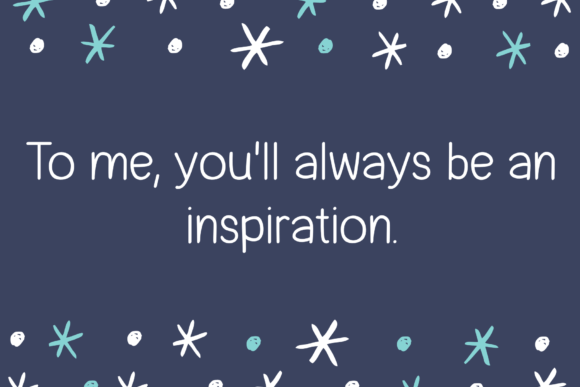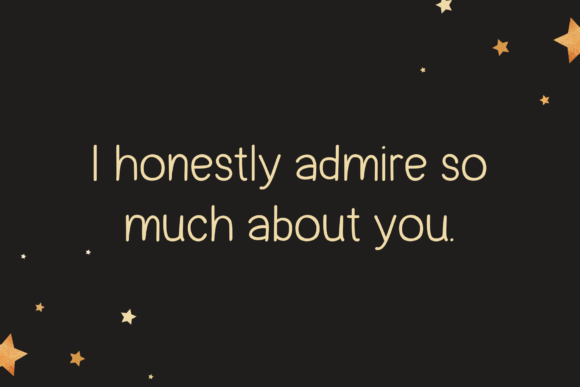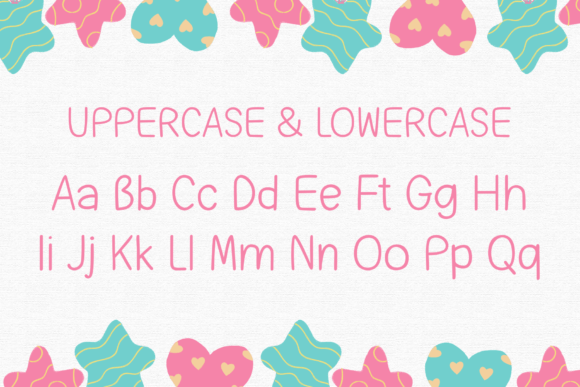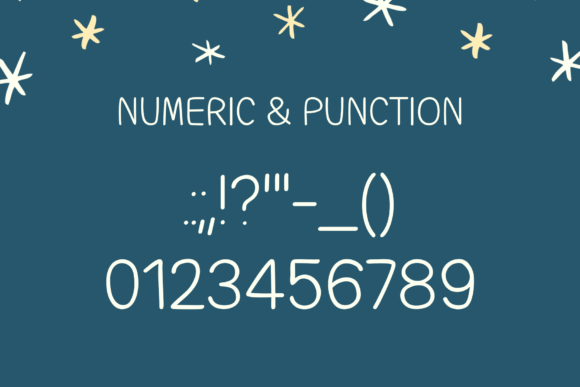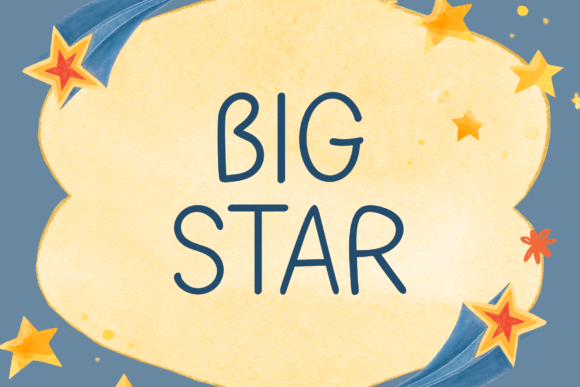
Unlock the Magic of Big Star Font
Have you ever been working on a design project and suddenly felt a spark of creativity? Maybe it was the perfect combination of colors, or the way a particular font seemed to bring everything together. For many designers, it’s that moment of inspiration that drives us to create something truly special. And for those who have experienced it, we’re excited to introduce you to a font that can help you capture that magic – the Big Star Font.
This elegant font is designed to elevate your designs to new heights of sophistication and glamour. With its sleek lines and celestial charm, it’s the perfect choice for projects that require a touch of magic. Whether you’re working on logos, branding, invitations, or stationery, the Big Star Font is sure to add a star-studded touch to your work.
Big Star Font Key Features
- Unique Characteristics: The font features a distinctive, hand-drawn style with subtle imperfections, giving it a unique and human touch.
- Language Support: Big Star Font supports a wide range of languages, including Latin, Cyrillic, and Greek alphabets, making it suitable for multilingual designs.
Big Star Font Review
As a designer, I was excited to dive into the Big Star Font, a modern sans-serif font that promises to bring a touch of elegance to any design. Here’s my honest review.
- Neutral and approachable feel: Big Star Font has a clean and minimalist aesthetic that makes it perfect for a wide range of designs, from corporate branding to editorial content.
- High legibility: The font’s design ensures that the text is easy to read, even at smaller font sizes.
- Customization options: Big Star Font offers a range of weights and styles, allowing designers to tailor the font to their specific needs.
- Lack of uniqueness: While Big Star Font is well-designed, it may not stand out in a crowded market of sans-serif fonts.
- Not ideal for display typography: The font’s clean lines may make it less suitable for headings or titles that require more visual impact.
Overall, Big Star Font is a solid choice for designers looking for a reliable and versatile sans-serif font. While it may not be the most exciting option, it’s a safe bet for any project that requires a clean and approachable feel.
Big Star Font: A Practical Application Guide
Tips for Getting the Most Out of Big Star Font
Big Star Font is perfect for creating bold, eye-catching headings. Use it sparingly to add emphasis to your designs. Experiment with different font sizes and styles to create visual interest.
Big Star Font is commonly used in:
– Music-related designs (e.g. album covers, posters)
– Fashion designs (e.g. apparel, accessories)
– Advertising and marketing materials (e.g. flyers, brochures)
Alternatives to Big Star Font
Pacifico is a beautiful, elegant script font that works well for headings, titles, and quotes. It’s perfect for designs that require a touch of sophistication and luxury. Pacifico is more refined and polished compared to Big Star Font, which has a more casual and playful feel.
When to use: Wedding invitations, luxury branding, and high-end advertising.
Great Vibes is a modern, stylish script font that’s ideal for headings, titles, and short paragraphs. It’s a great alternative to Big Star Font for designs that require a sense of movement and energy. Great Vibes is more dynamic and expressive compared to Big Star Font, which has a more laid-back feel.
Q: What are the technical specifications of the Big Star Font?
The Big Star Font has a font size range of 8-72 points, with 12 styles available, including light, regular, medium, bold, and extra bold. The font supports Latin, Greek, and Cyrillic character sets and is optimized for use at screen resolutions up to 300 DPI.